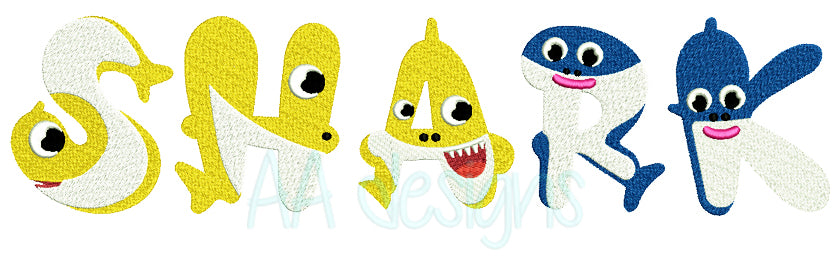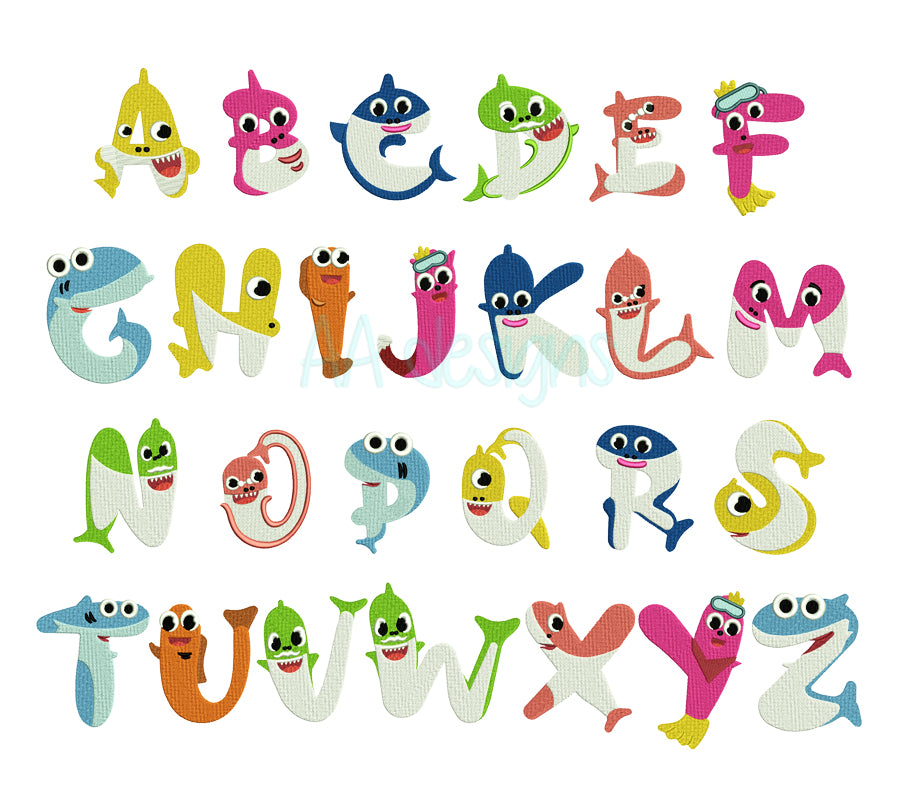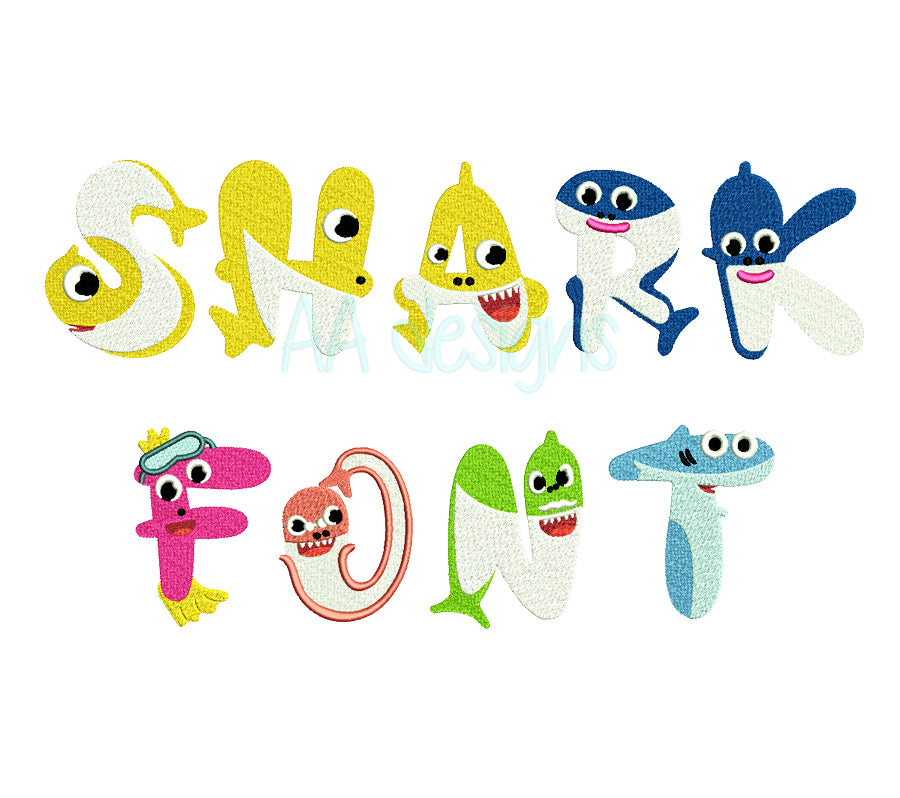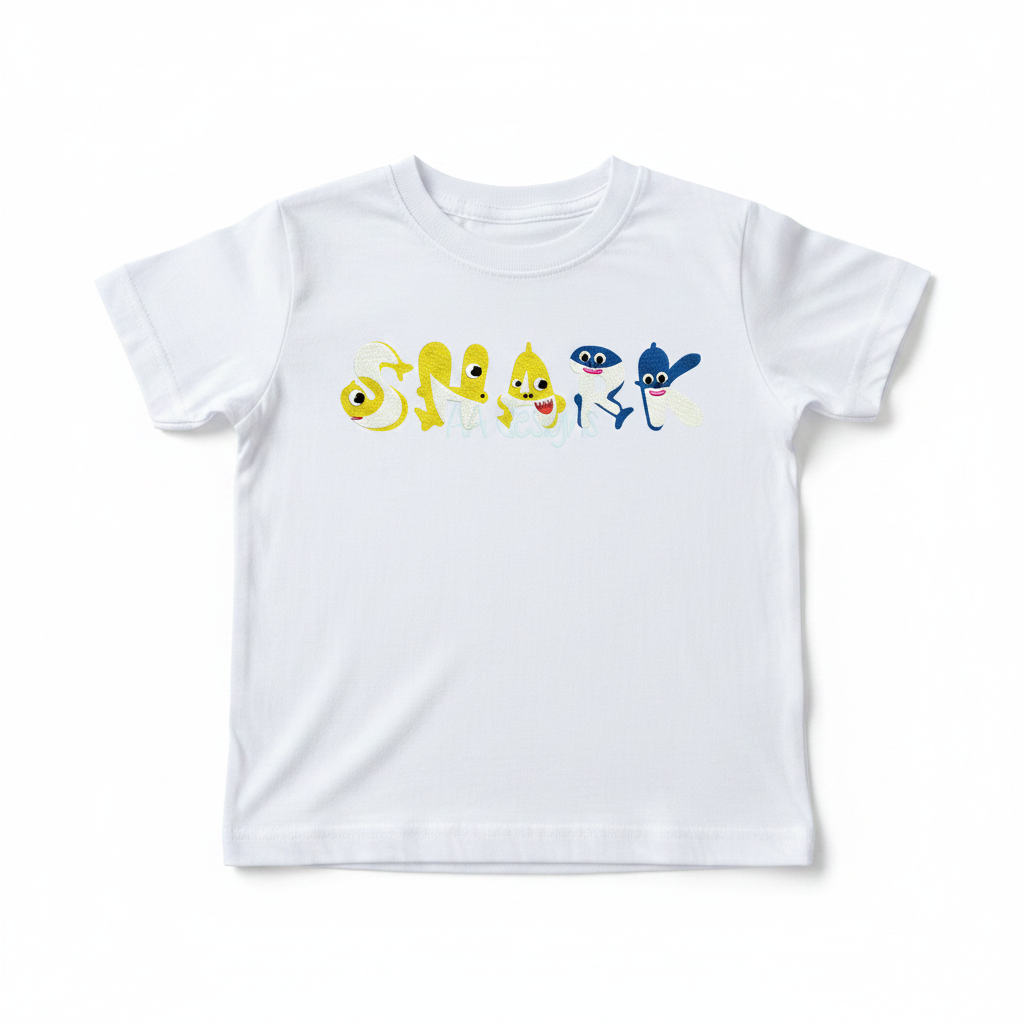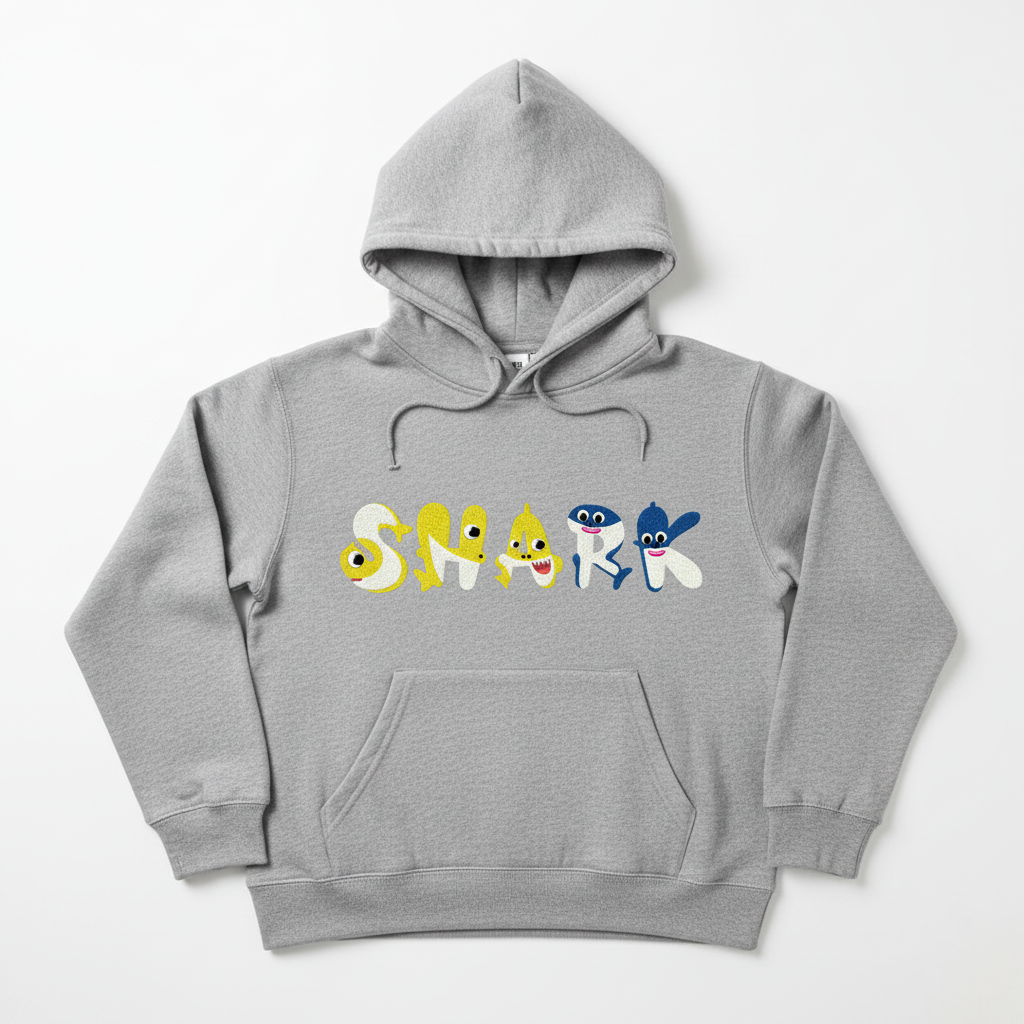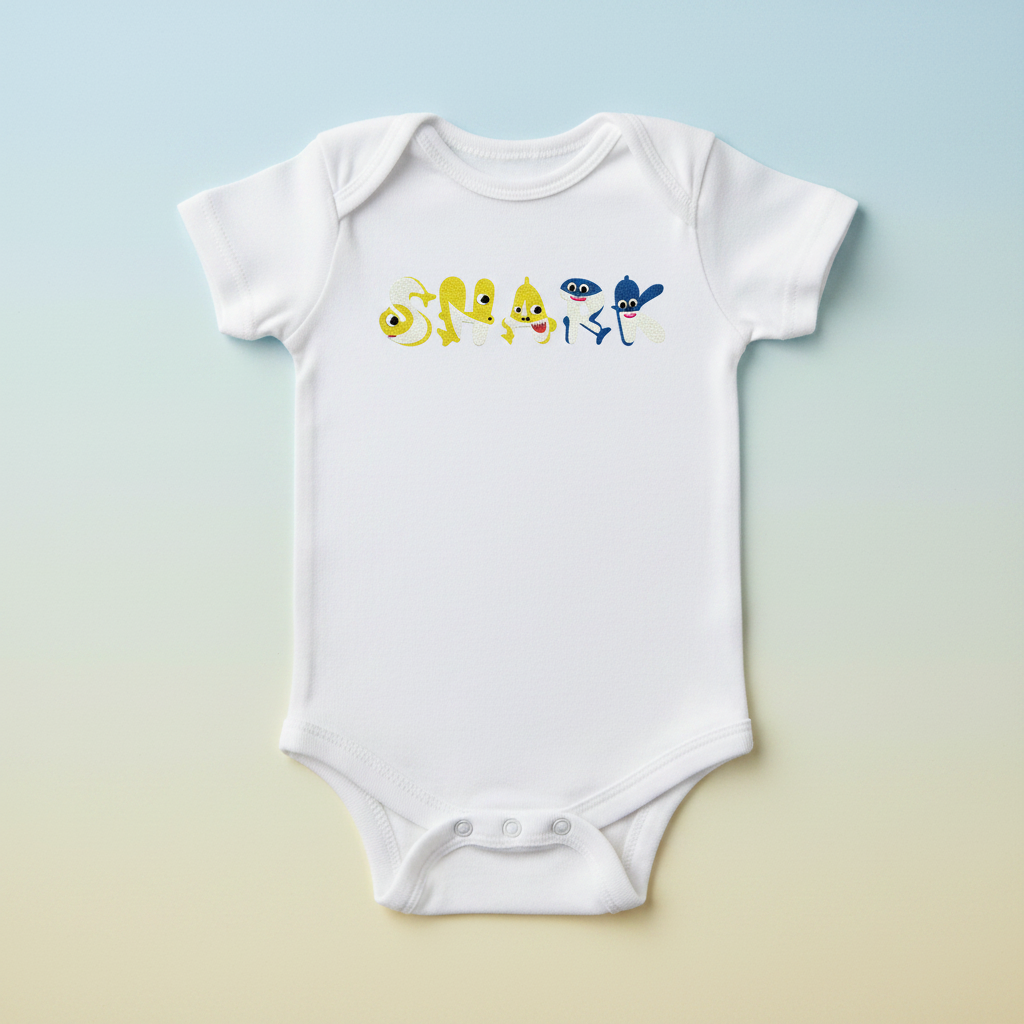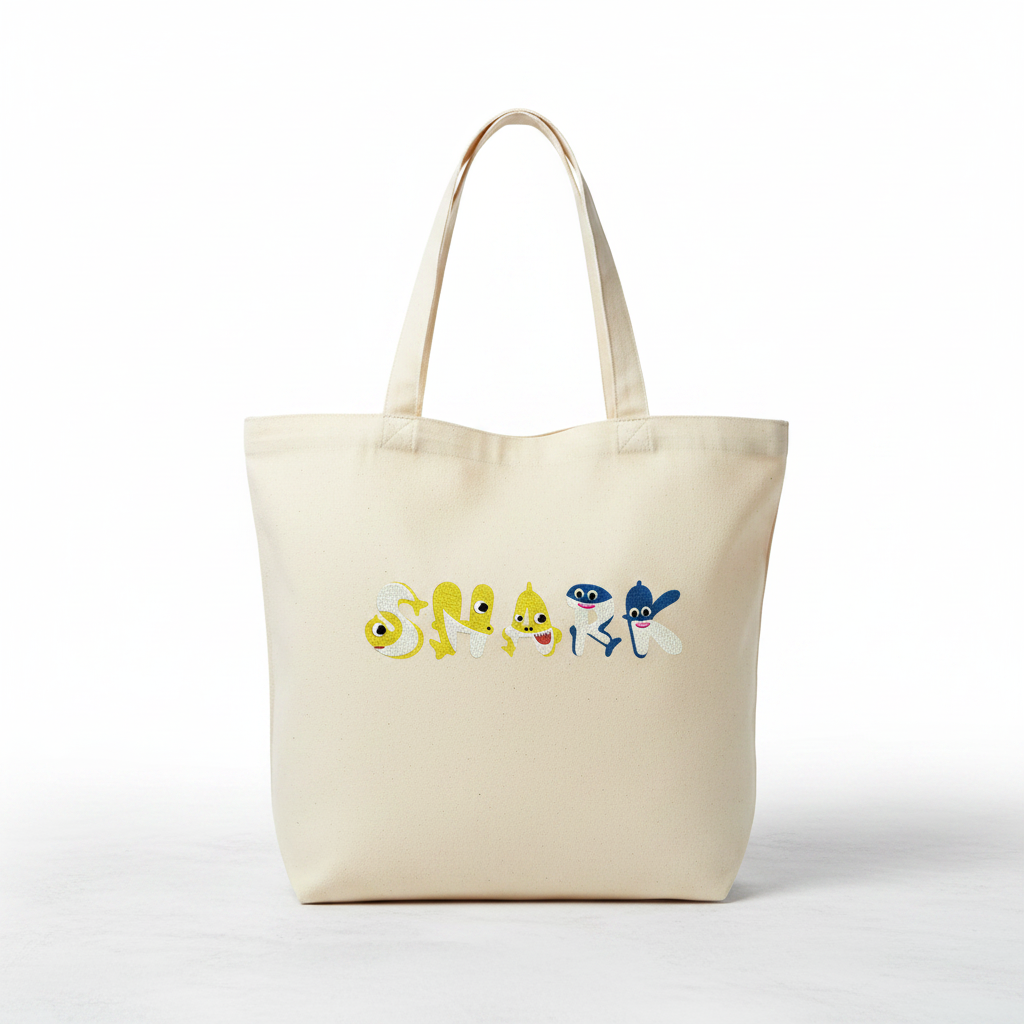
Baby Shark Embroidery Font
Bring the ocean to life with our adorable Baby Shark Embroidery Font — perfect for kids' clothing, baby onesies, hats, and more! Each letter features a cute baby shark character that little ones will absolutely love.
- Cute baby shark characters built into every letter
- Perfect for kids' t-shirts, onesies, hoodies, hats & bible covers
- Clean, detailed stitches that look amazing on any fabric
- Great for personalized gifts and baby shower items